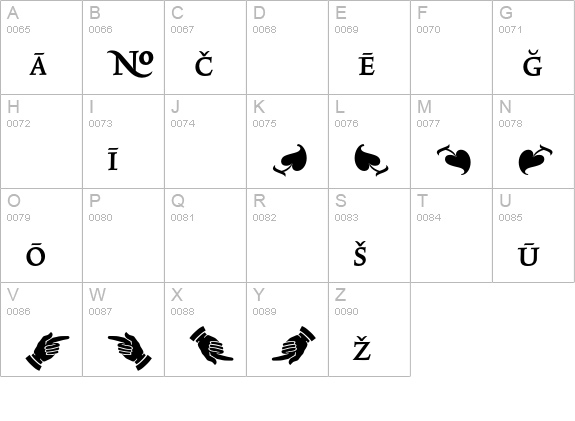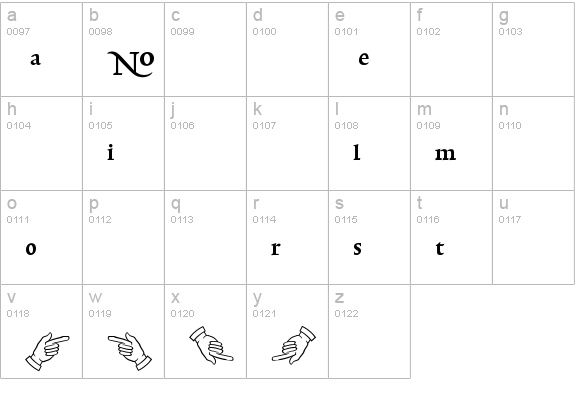
TriniteNo1-MediumCondensedPi font is a stunning typeface that exudes elegance and sophistication. Its condensed design is perfect for those seeking a modern and sleek look in their designs. The letters are meticulously crafted, with clean lines and precise curves, resulting in a well-balanced and visually appealing font. This font is incredibly versatile and can be used in a variety of design projects. Whether you are creating a logo, designing a website, or working on a branding project, TriniteNo1-MediumCondensedPi font will elevate your work to new heights. What sets TriniteNo1-MediumCondensedPi font apart is not only its exceptional design, but also its availability. This font is freely available to download at FontsMarket.com. Yes, you read that right - it's absolutely free! You can easily access this font and incorporate it into your projects without any hassle. TriniteNo1-MediumCondensedPi font is the perfect choice for those who value both style and affordability. Its sleek and modern design combined with its free availability makes it an excellent option for designers, entrepreneurs, and creatives of all kinds. Don't miss out on the opportunity to enhance your designs with TriniteNo1-MediumCondensedPi font. Download it now from FontsMarket.com and experience the endless possibilities this font has to offer.